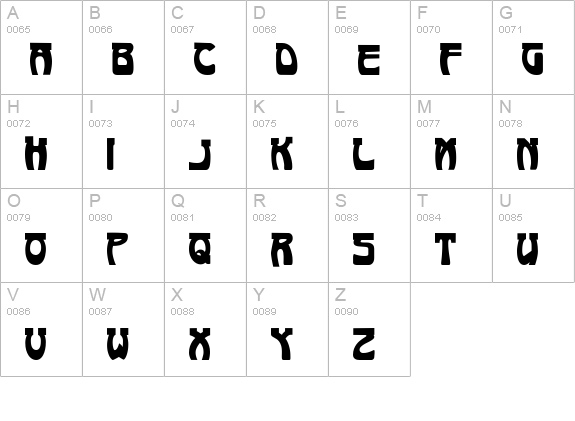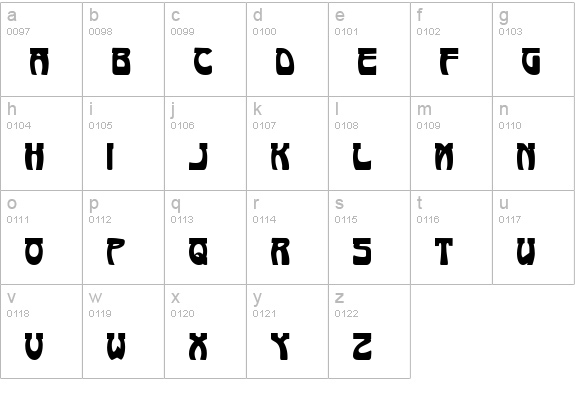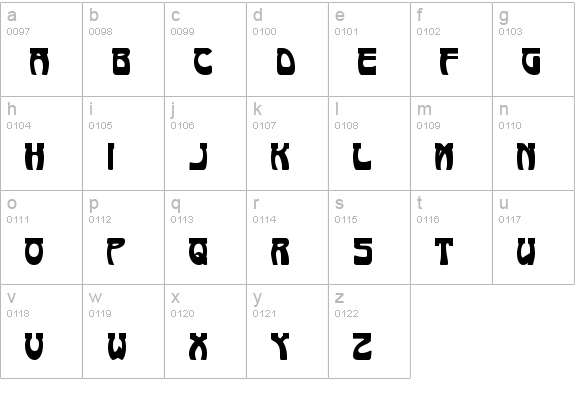
Art-Nouveau 1895 font is a stunning typeface inspired by the elegant and intricate designs of the Art Nouveau movement from the late 19th century. With its flowing lines and intricate details, this font captures the essence of the Art Nouveau style perfectly. It exudes a sense of sophistication and grace, making it ideal for projects where a touch of vintage charm is desired. This font is not only visually appealing but also versatile, suitable for a wide range of design projects including invitations, posters, branding, and more. Whether you are looking to add a touch of old-world charm or a unique flair to your designs, Art-Nouveau 1895 font is sure to impress. The best part? Art-Nouveau 1895 font is available for free download at FontsMarket.com. So go ahead and elevate your designs with this exquisite typeface today!